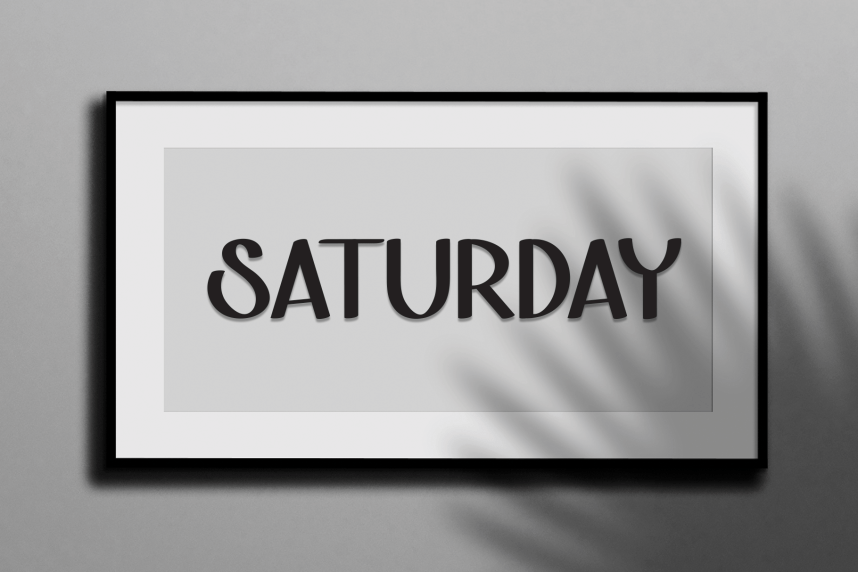
Melody Playful Font
Melody Playful Font is a sweet and friendly handwritten display font. Cute and fun, this font is ideal for writing wedding invitations, cards, or any other design that might need a playful touch!